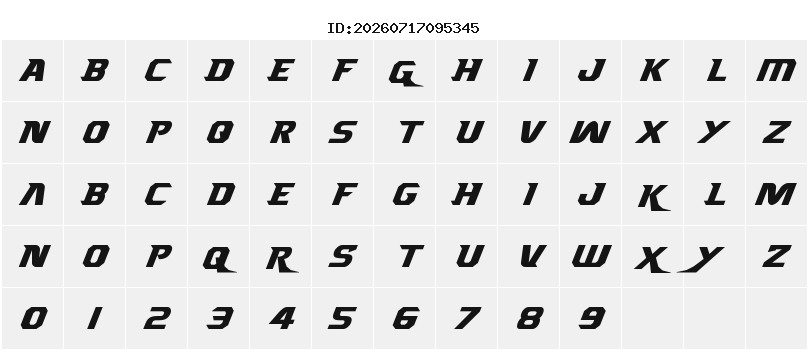
Borgsquad Italic Preview
• Font Name: Borgsquad Italic
• Full Font Name: Borgsquad Italic
About Borgsquad Italic.ttf
Borgsquad Italic.ttf is a modern, elegant sans-serif font designed for ultimate readability and visual harmony. Perfect for branding, headlines, web design, and print materials.